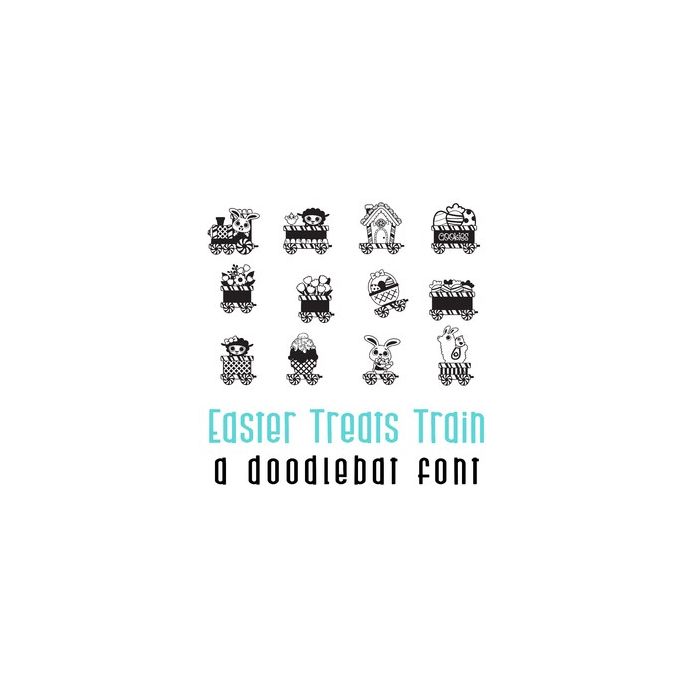
This fun doodlebat font features 26 images of bunnies, chicks and sheep all abord a spring train. Perfect for cards, crafts, gifts, decor, planner stickers, scrapbook pages and more!